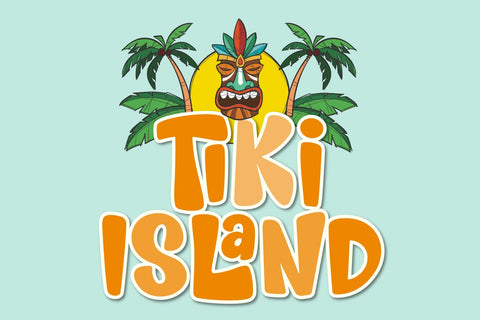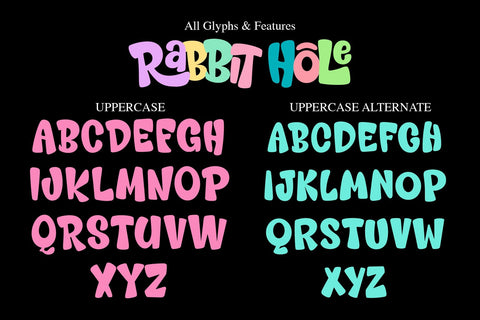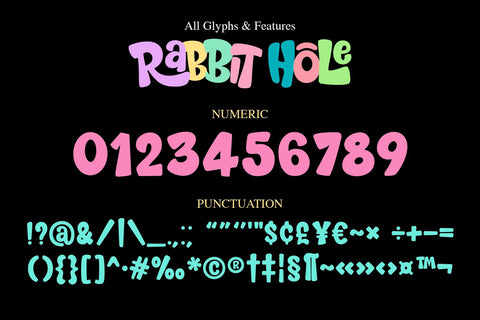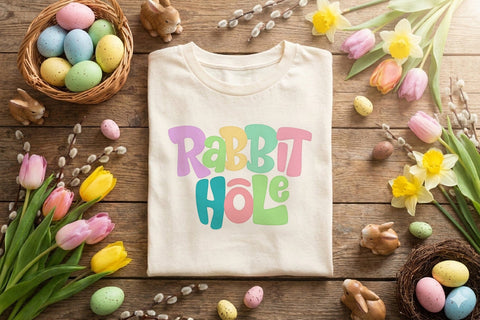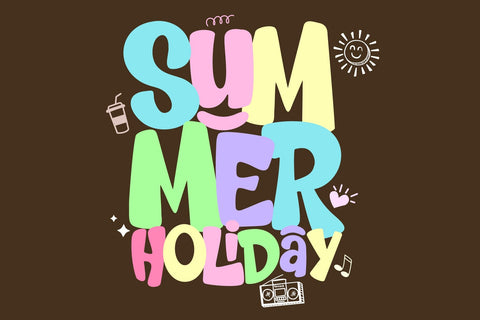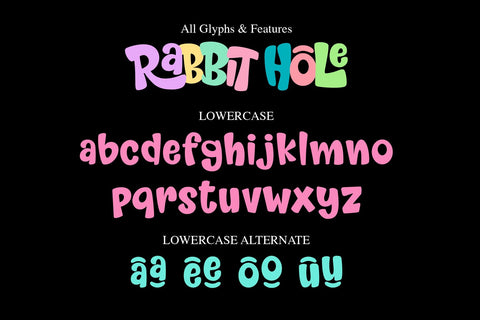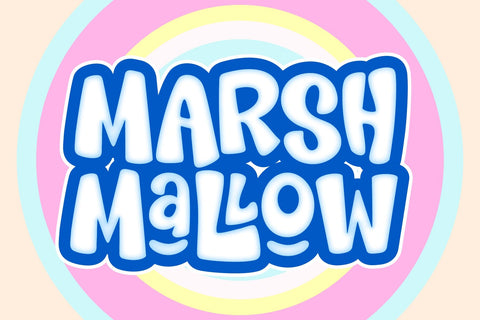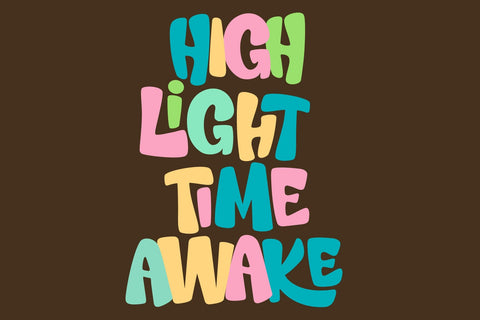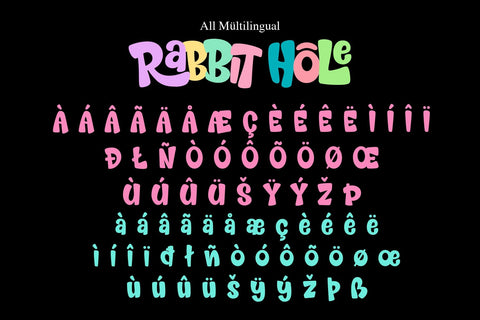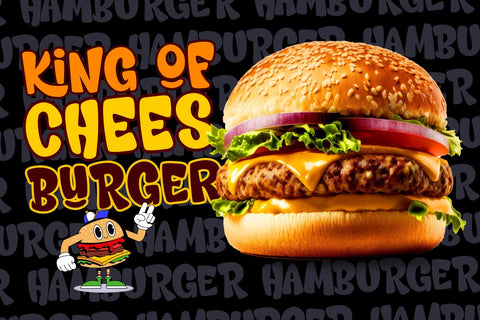
Rabbit Hole
Rabbit Hole is a bold, playful display font that blends cute charm with groovy retro energy. Designed to stand out, it brings a joyful personality to both kids projects and expressive branding. With its chunky organic shapes and bouncy rhythm, Rabbit Hole feels friendly and fun — yet strong enough to command attention in posters, packaging, and merch.
Whether you're creating something sweet and cheerful or bold and eye-catching, Rabbit Hole adapts effortlessly.
Playful enough for kids.
Groovy enough for brands.